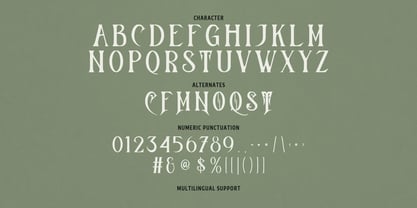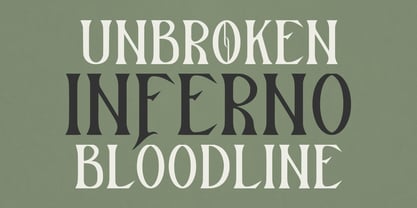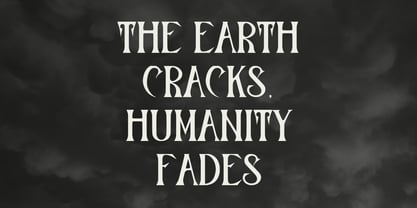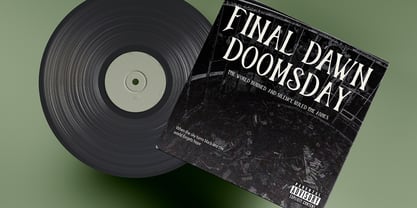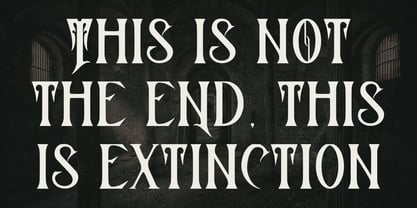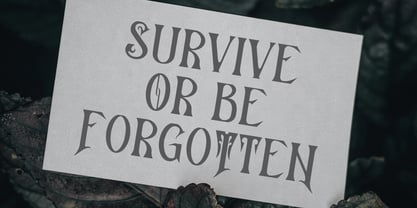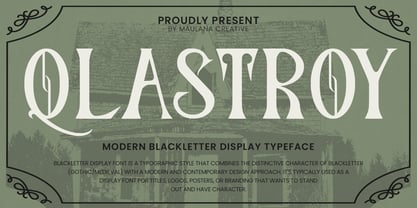
MC Qlastroy
par Maulana Creative
La famille de polices MC Qlastroy a été conçue par Gilang Maulana et publiée par Maulana Creative. MC Qlastroy contient 1 styles. En savoir plus sur cette famille
Qlastroy is a striking display font that masterfully blends the dark, intricate soul of traditional blackletter with a sharp, contemporary edge. Featuring elegant flourishes, unique alternates, and a hauntingly bold presence, this typeface is designed for high impact projects. It is an ideal choice for metal band logos, horror themed posters, edgy branding, vinyl cover art, and any design that demands a powerful, mysterious, and unforgettable character. This display font features tall, condensed letterforms and striking ornamental alternates that give your text a custom, hand lettered feel. It is perfectly suited for heavy metal aesthetics, tattoo-inspired branding, edgy labels, horror movie, and dramatic album. Whether you're designing for a "Scary Monster" or a "Melody Dramatic," Qlastroy provides the perfect balance of medieval soul and modern grit.